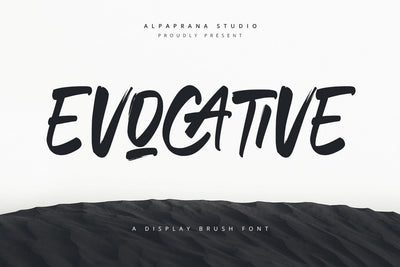
Evocative - Brush Font
Evocative is a brush font with natural and modern feels. It will be perfectly used for Branding, Logo Design, Lettering, Logotype, Clothing, Poster, magazine, packaging, posters, shopping bags, t-shirts, book covers, photography, special events and other design project.